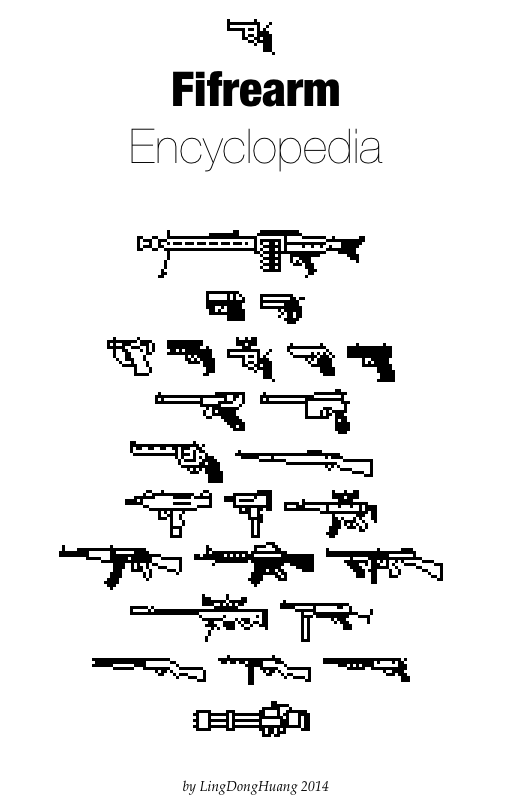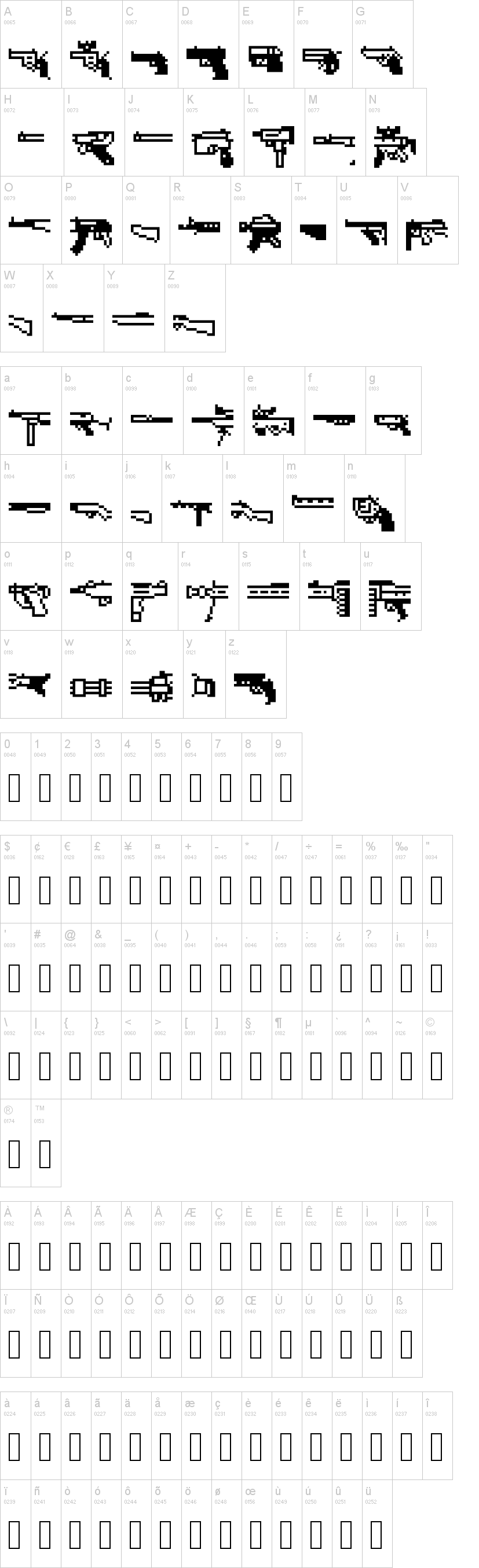
Note of the authorA collection of firearms made with pixels.
For some characters, each of them contains a part of a gun. Type the characters in alphabetical order to assemble the gun. You can also create customized guns by combining parts from different firearms.
Game developers may find this font handy.